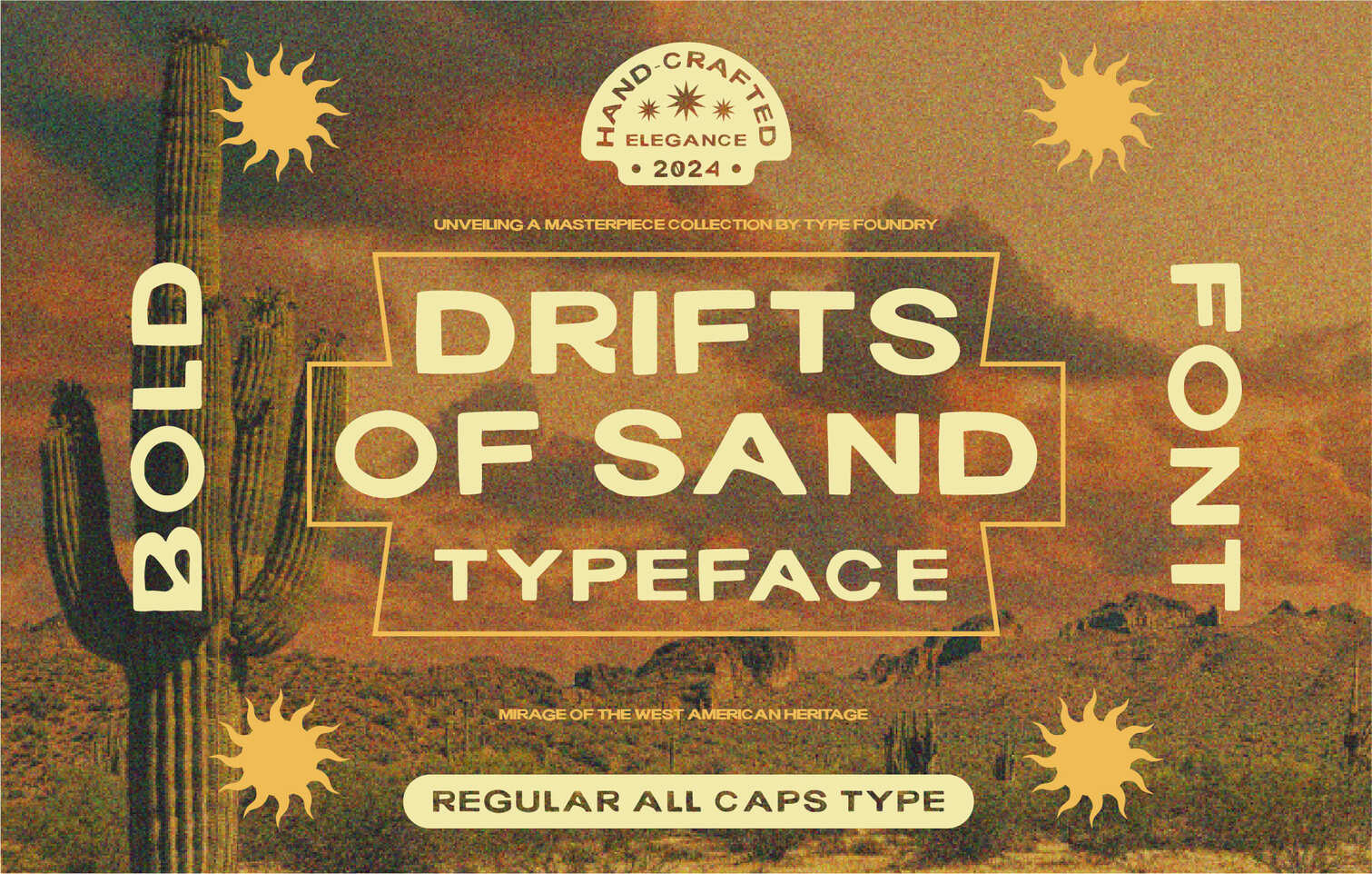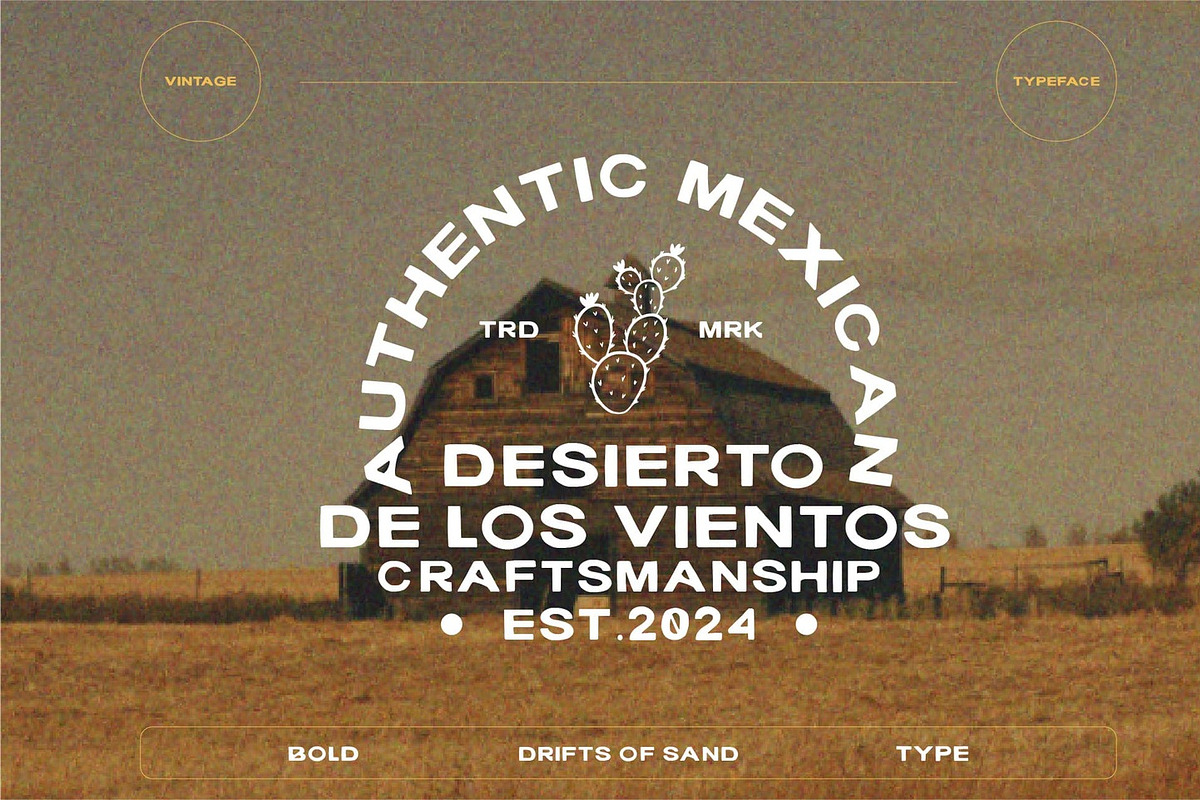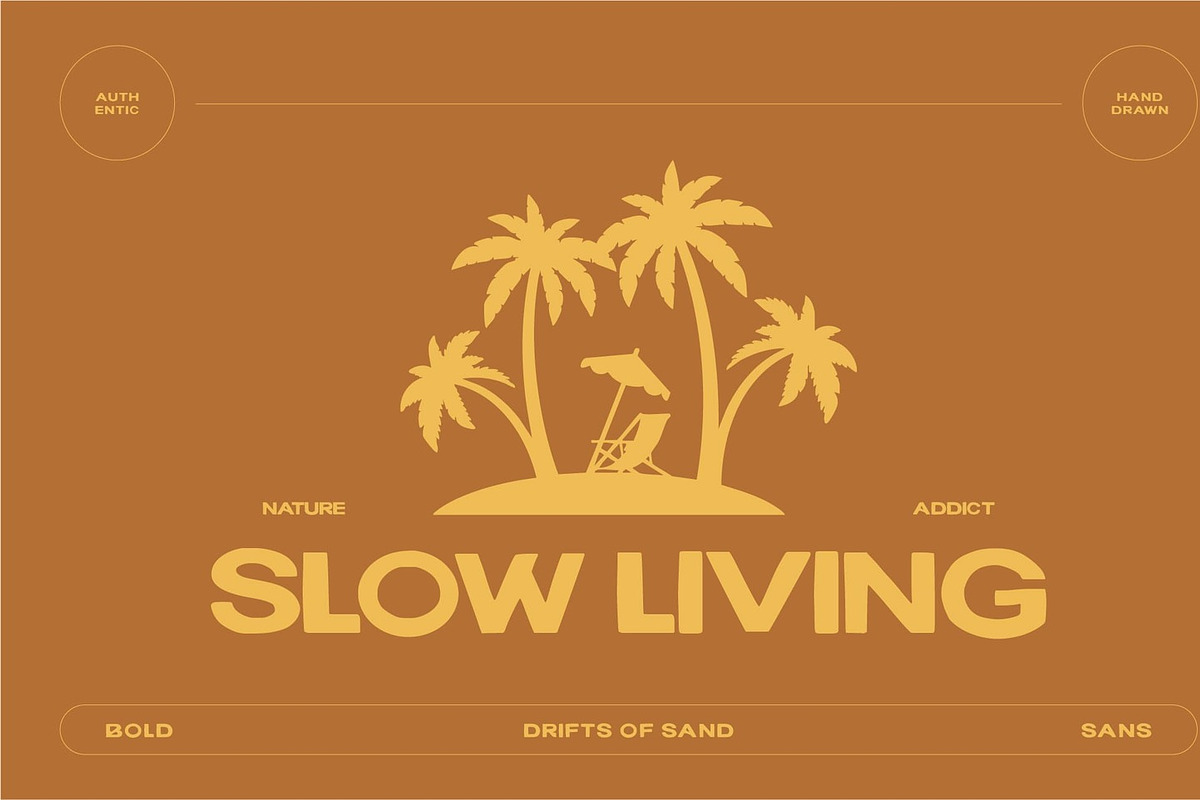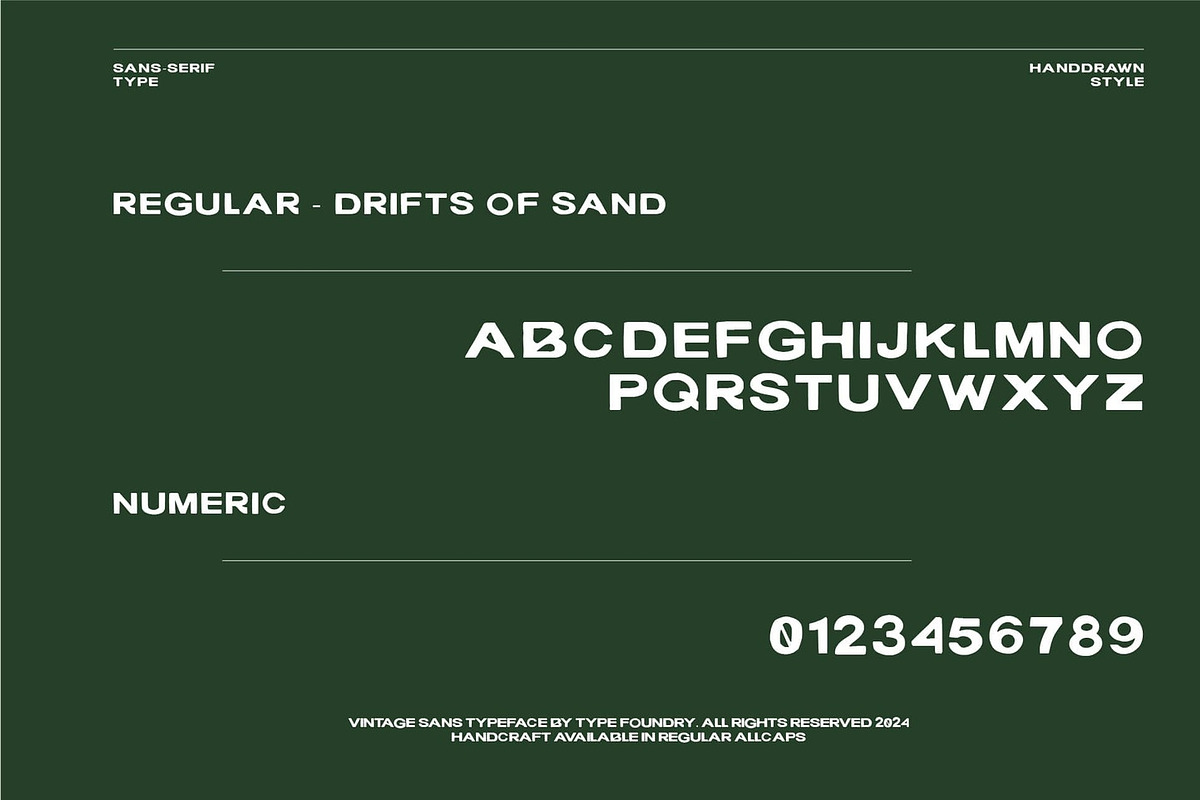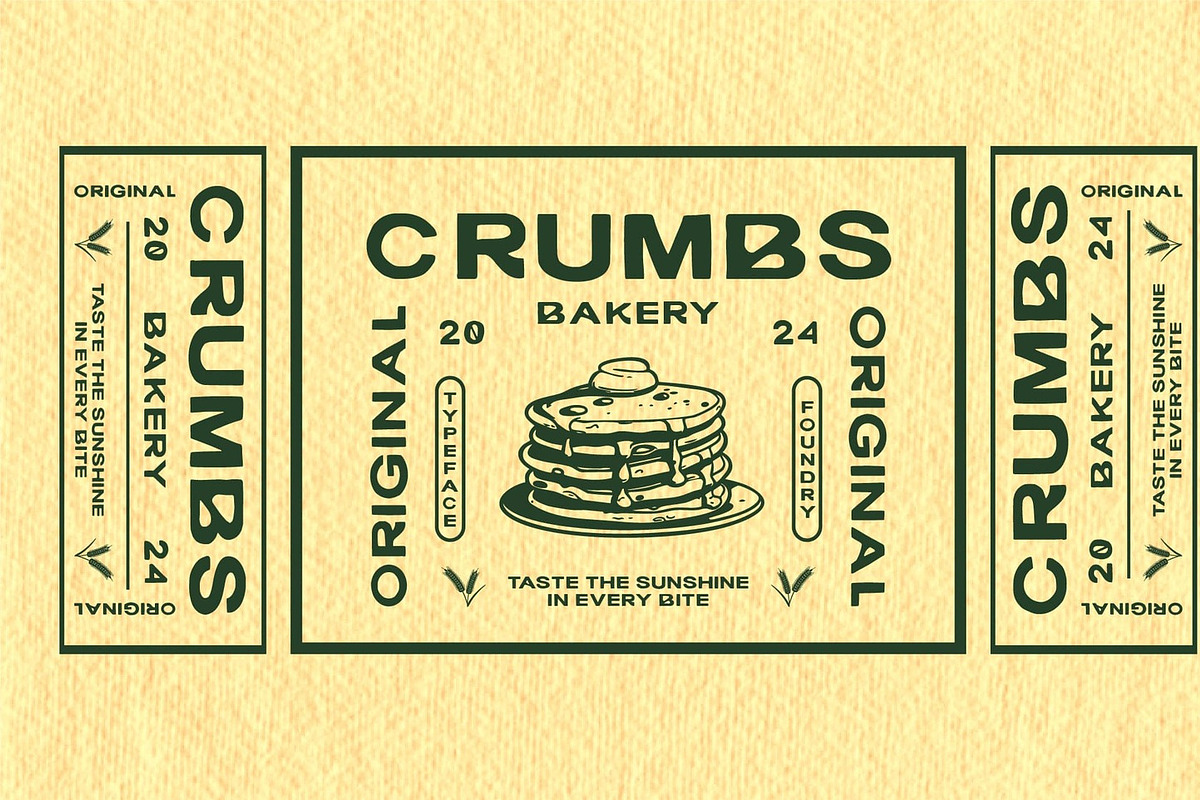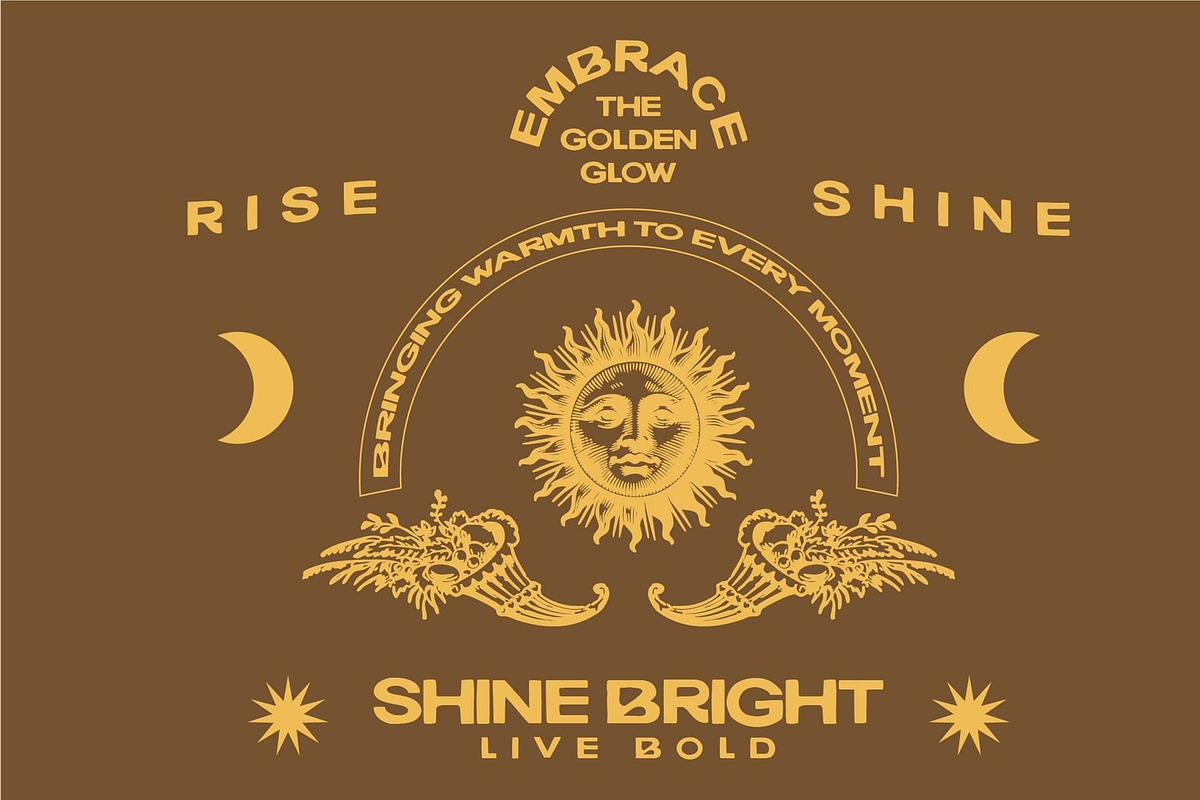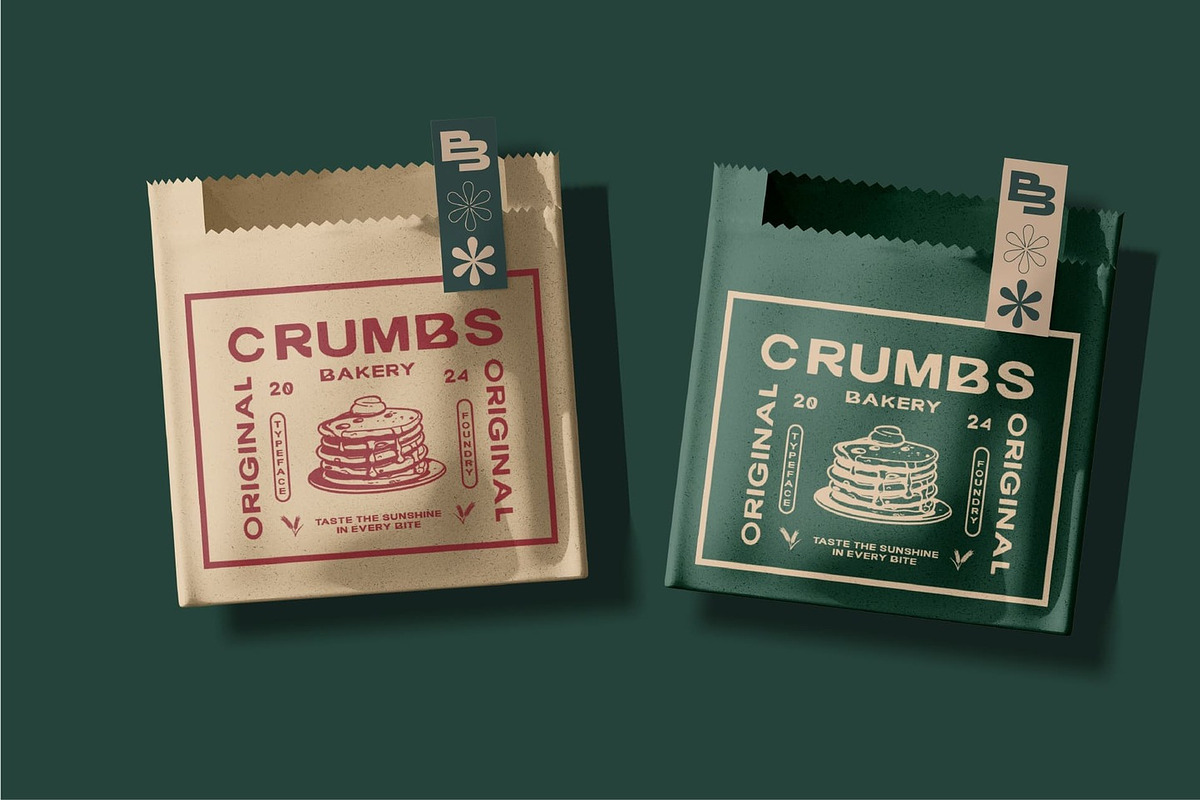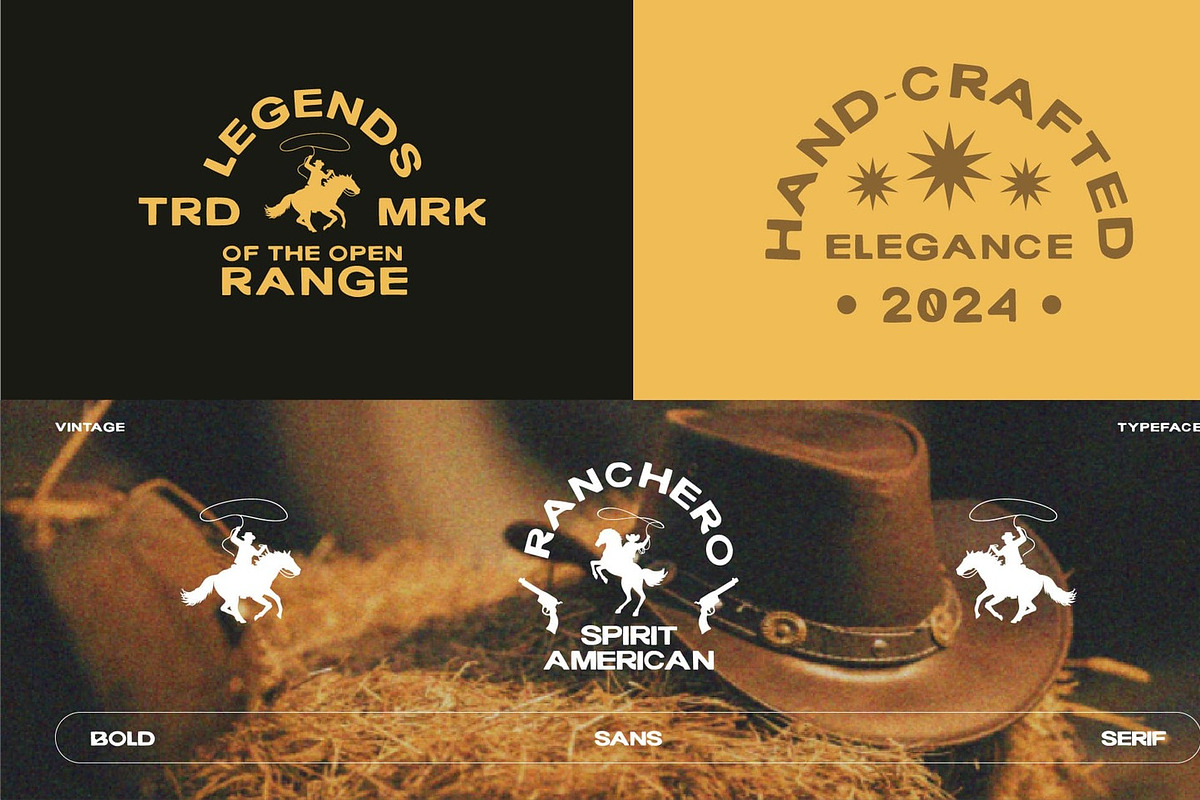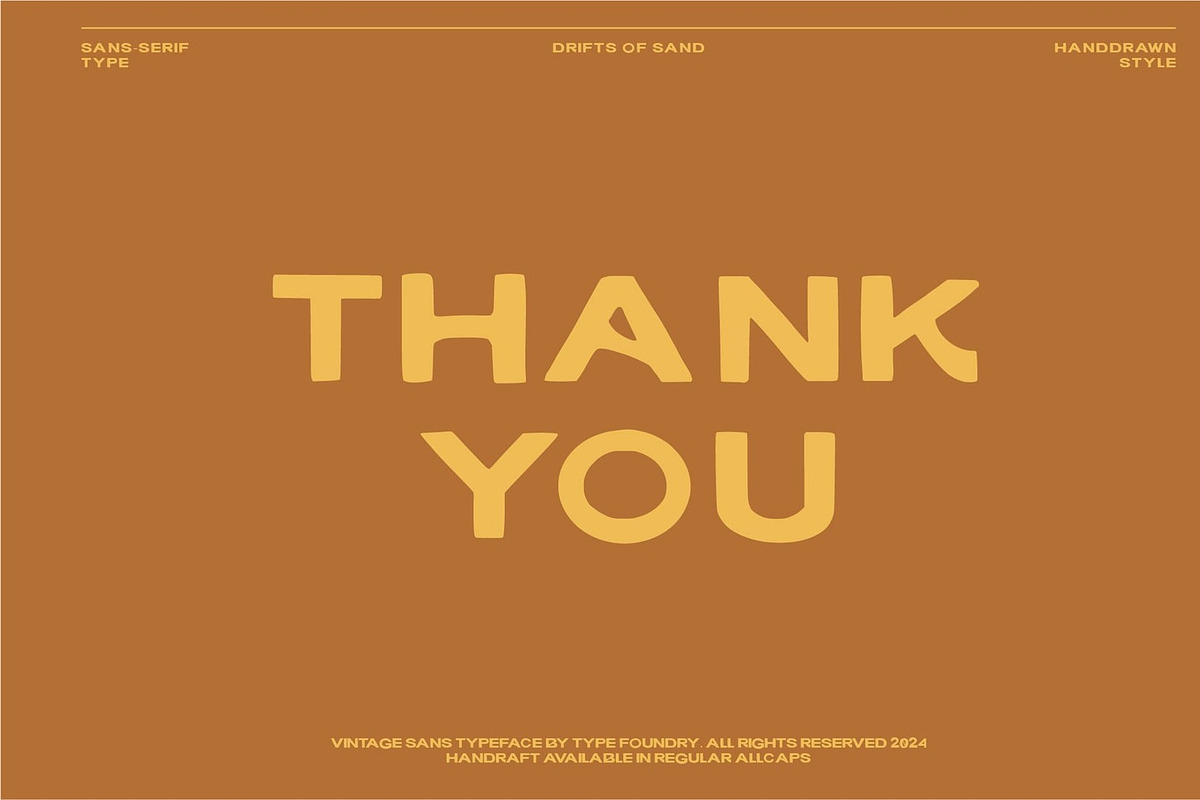
Drifts Of Sand - Retro Vintage Font
Drifts of Sand This font showcases a sans serif style with an authentic hand-drawn touch, bringing a personal and organic feel to each letter. Every character is crafted with subtle, slightly rough strokes, creating a casual aesthetic that remains clear and highly readable.